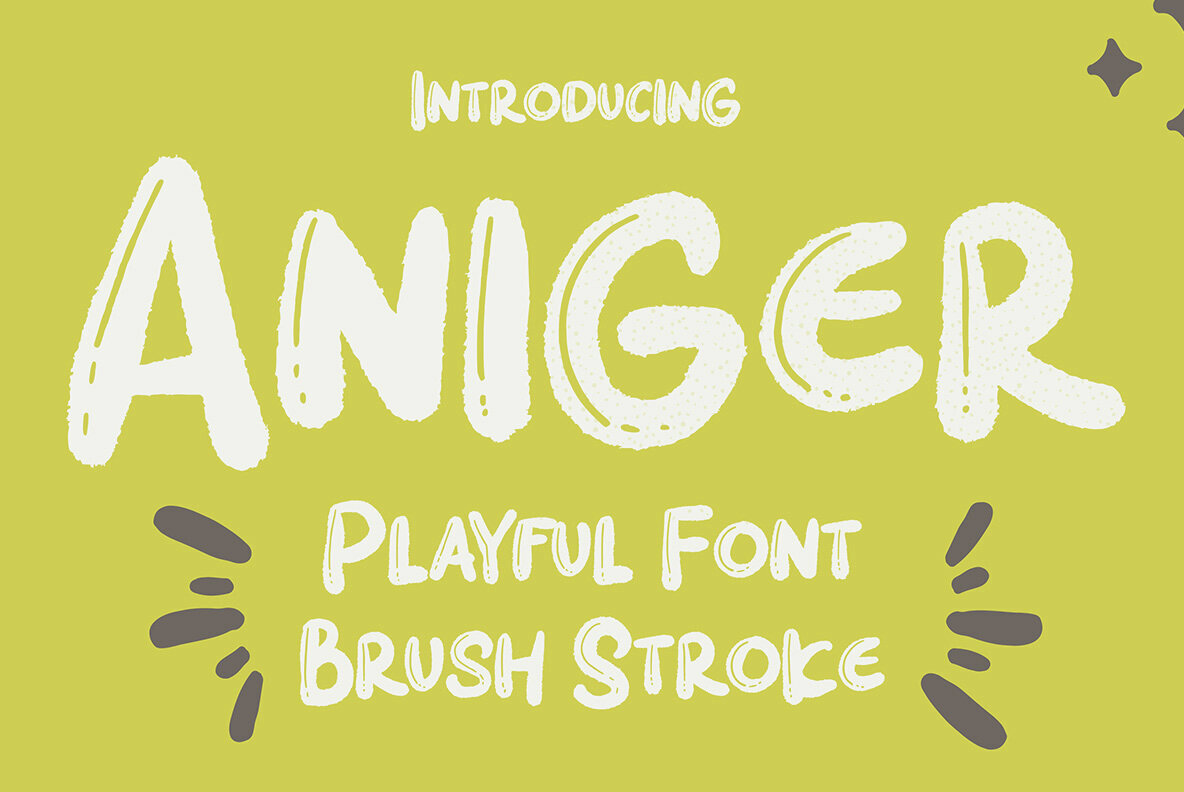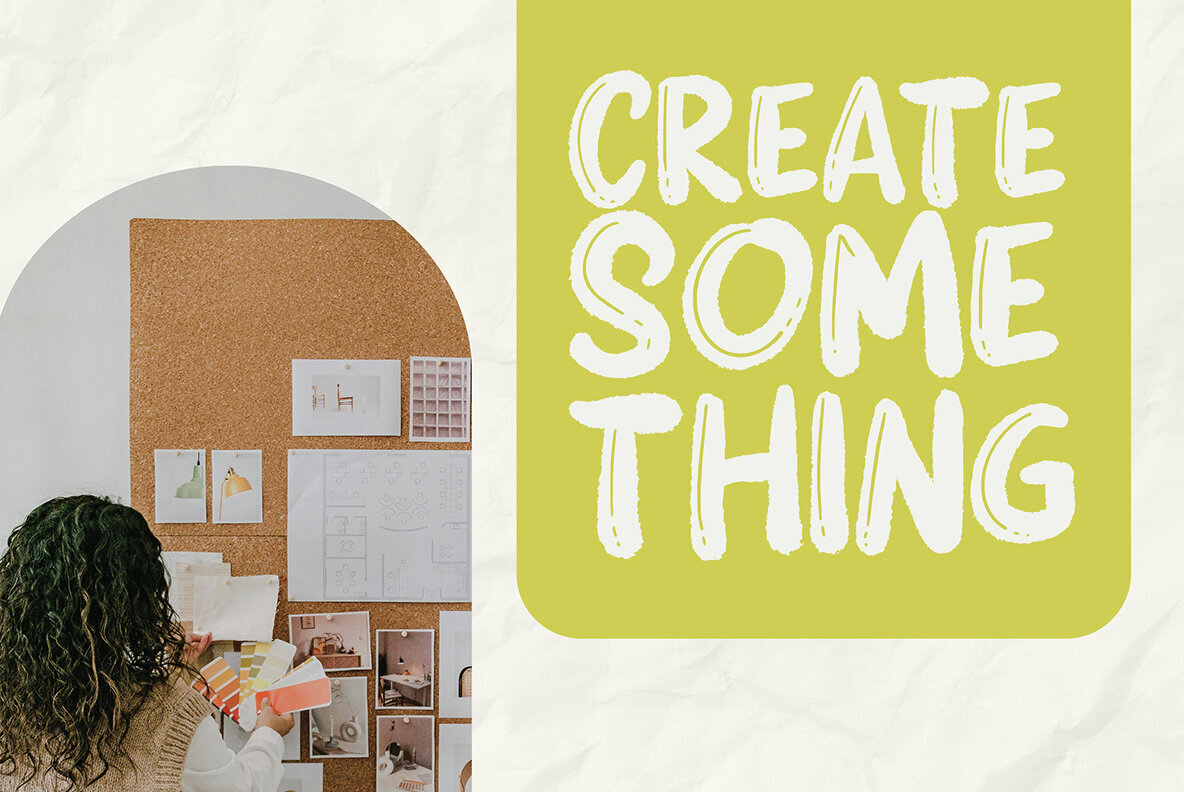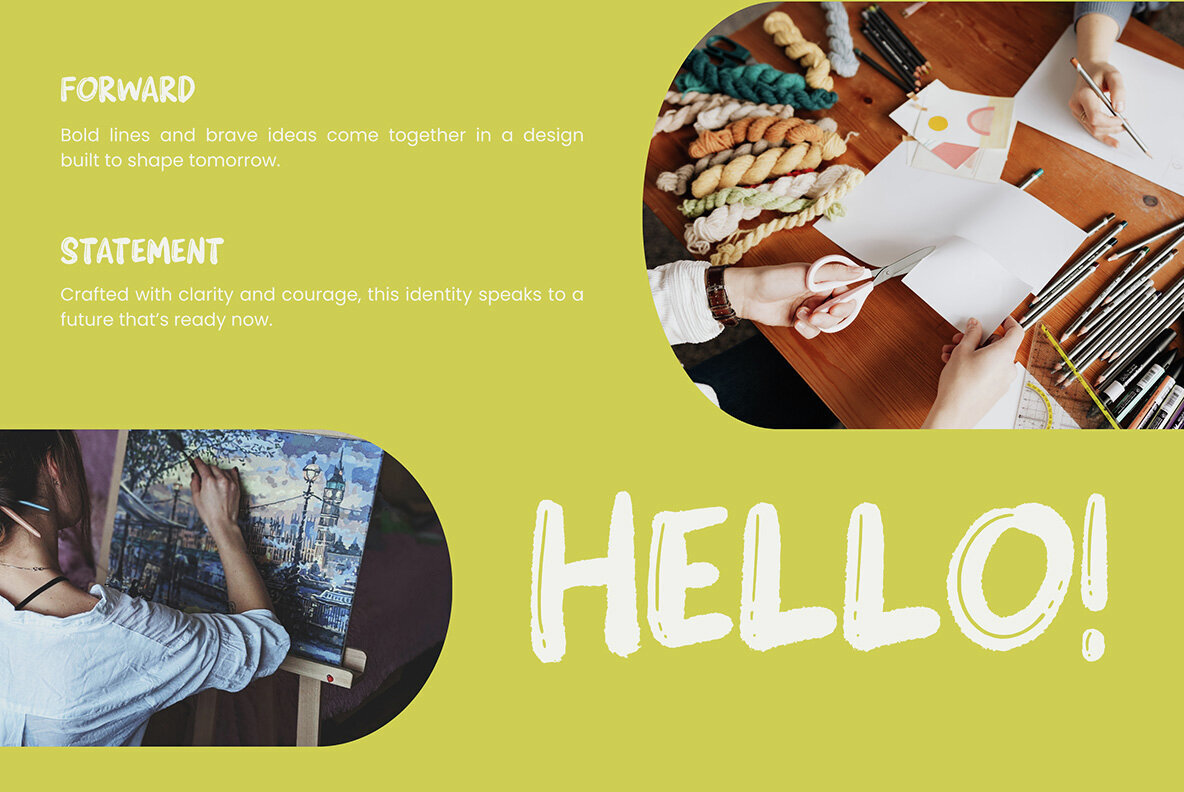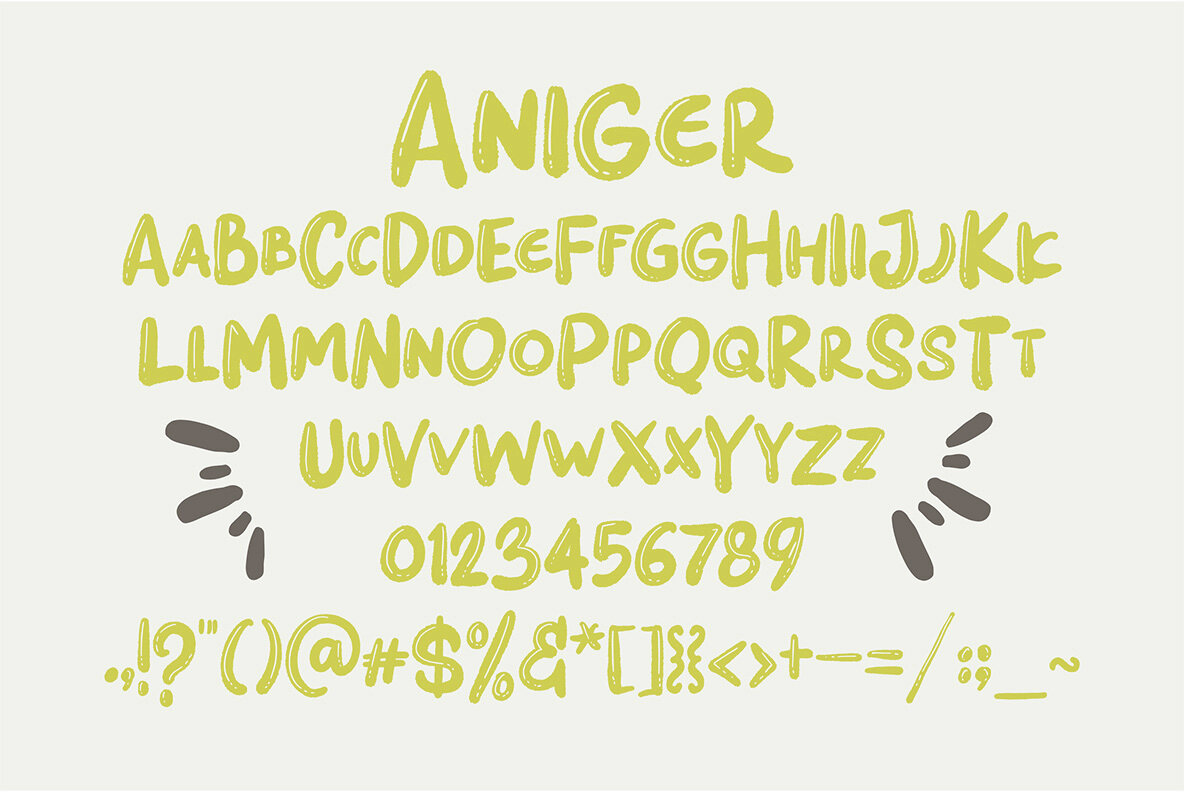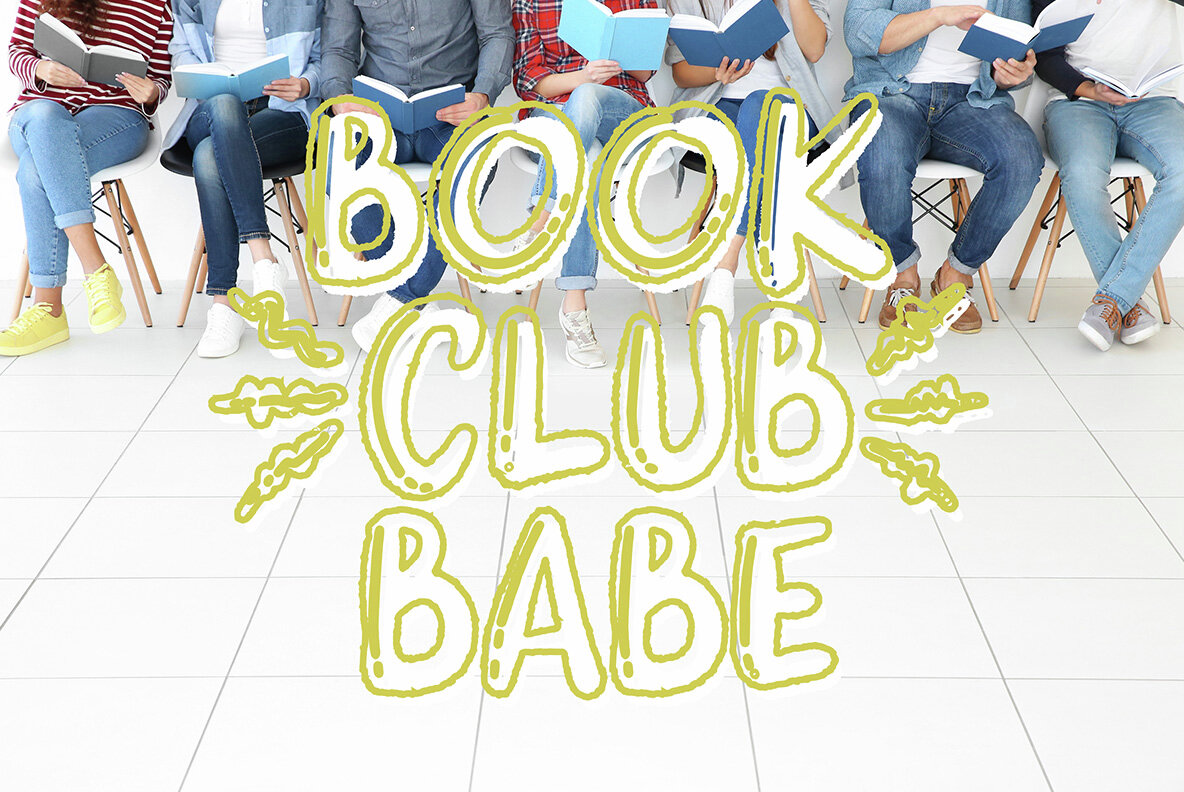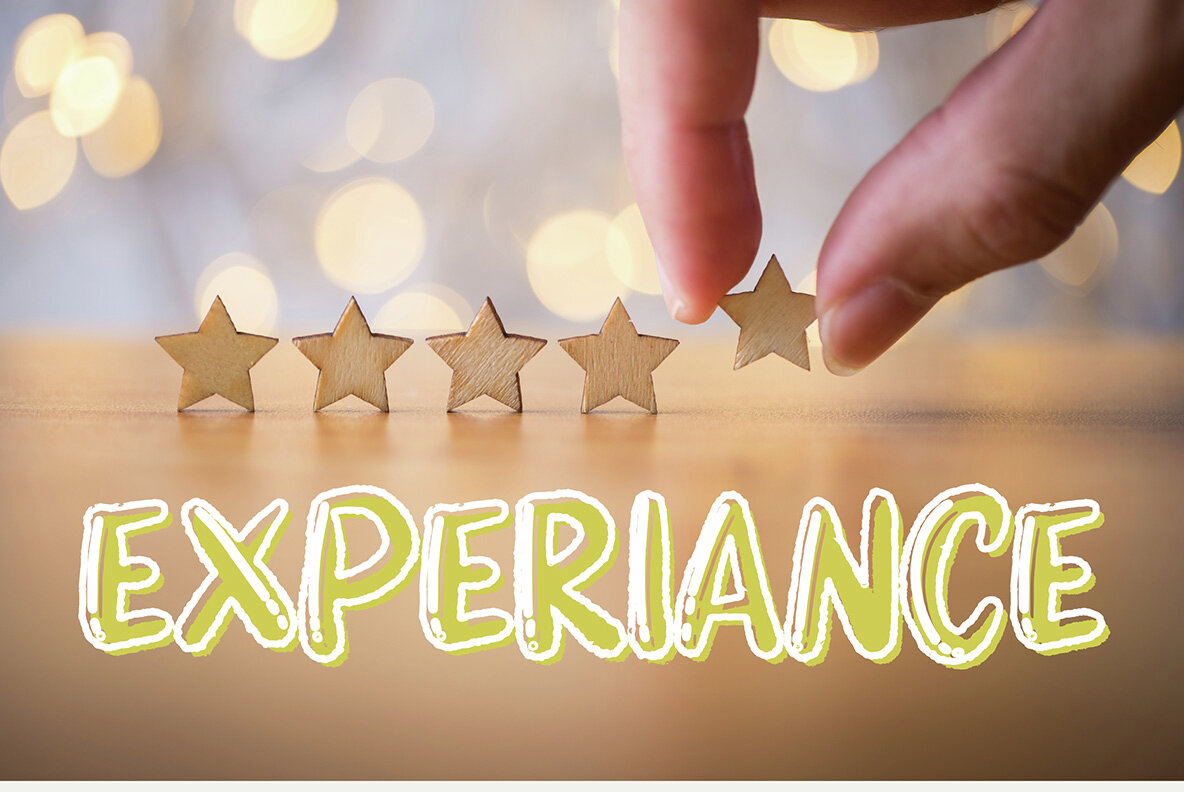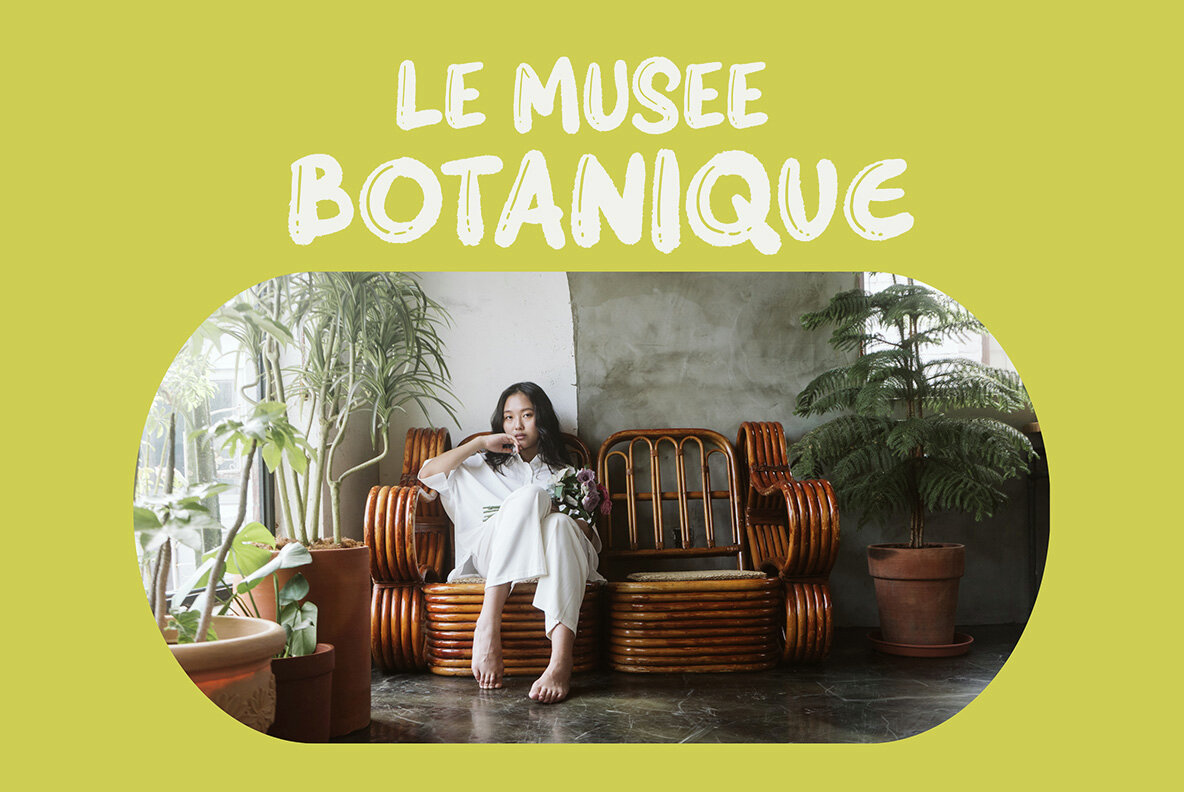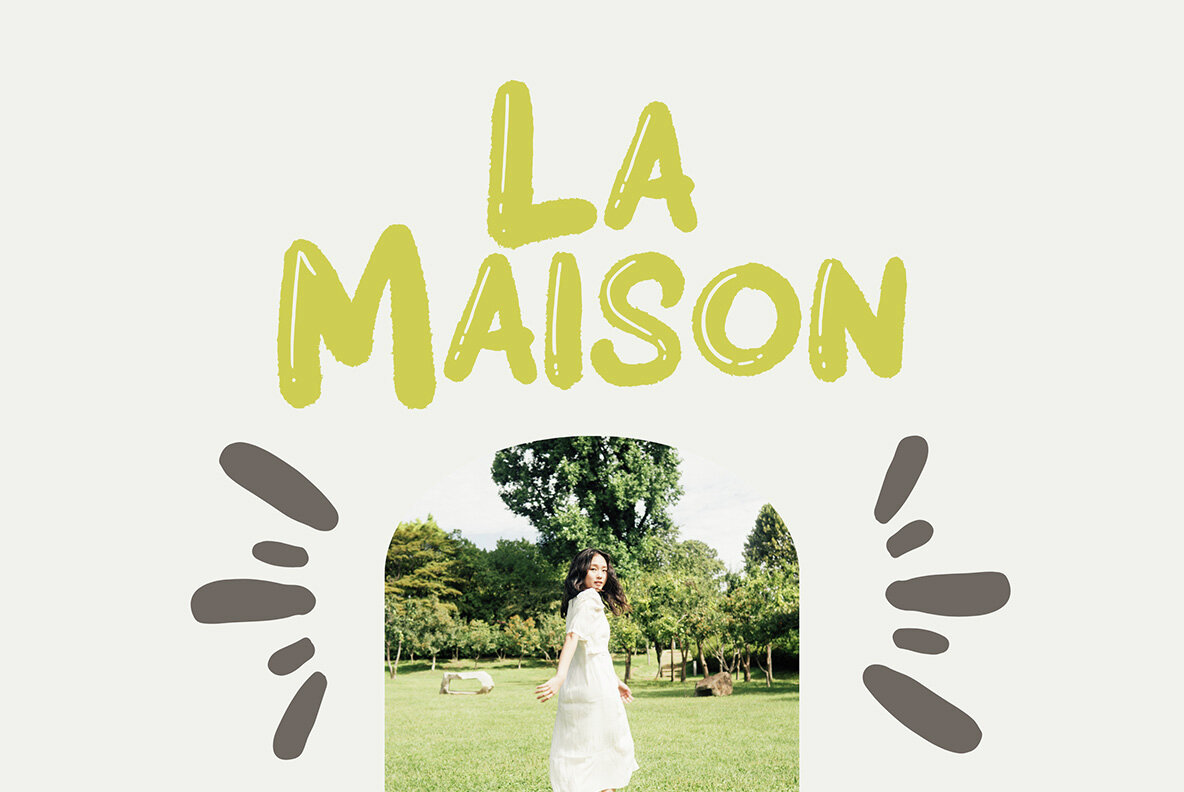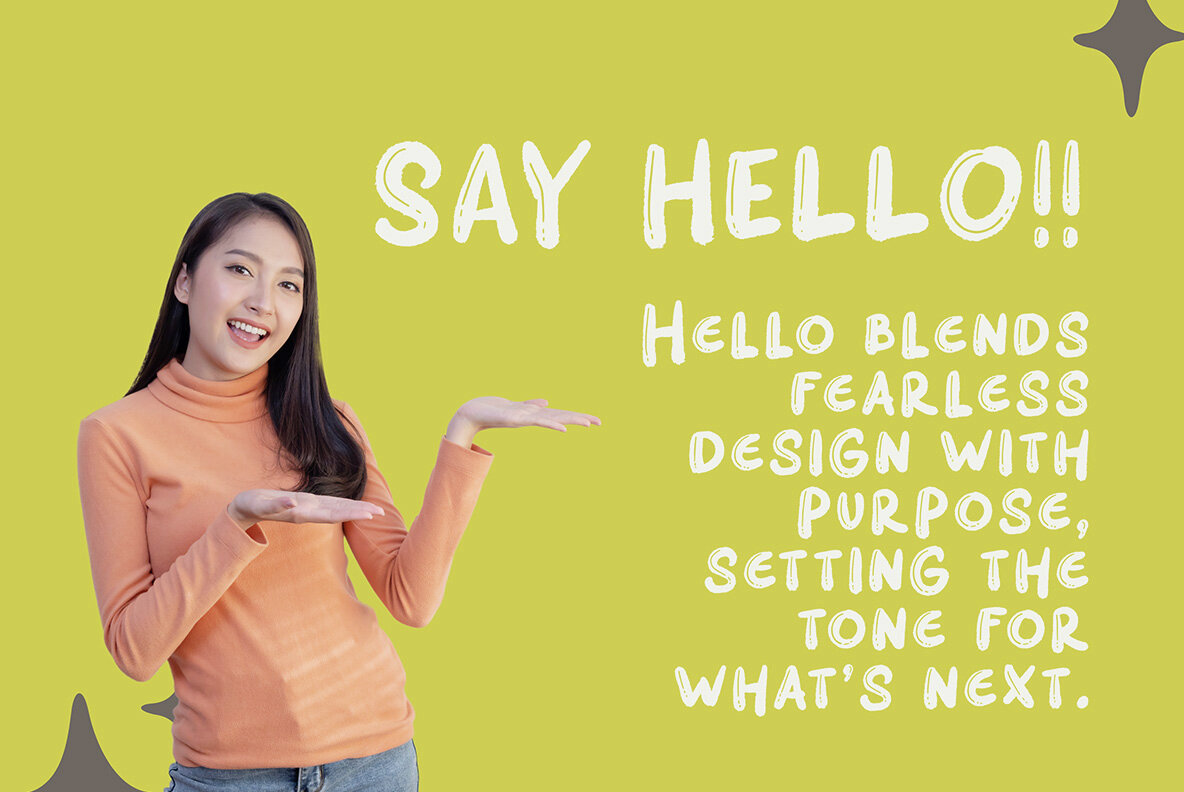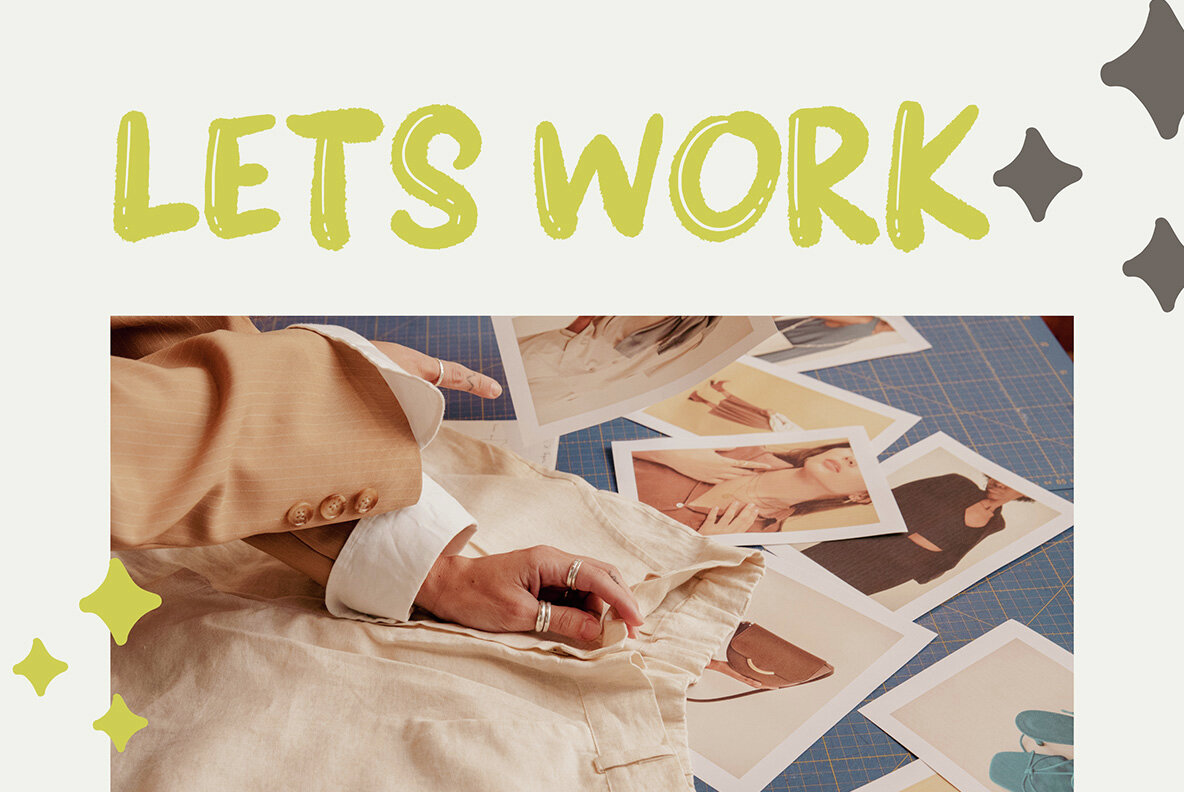
Aniger Font
Aniger
Aniger is a dynamic brush font designed for contemporary, lively projects. Ideal for social media content, eye-catching branding, product packaging, apparel, and event posters, Aniger infuses your designs with energy and a handcrafted touch. Characterized by expressive brush strokes and a relaxed vibe, Aniger ensures your visuals are both distinctive and stylish. Elevate your creative work with a font that captures attention and evokes a fresh, modern feel.Aniger Brush Stroke Font